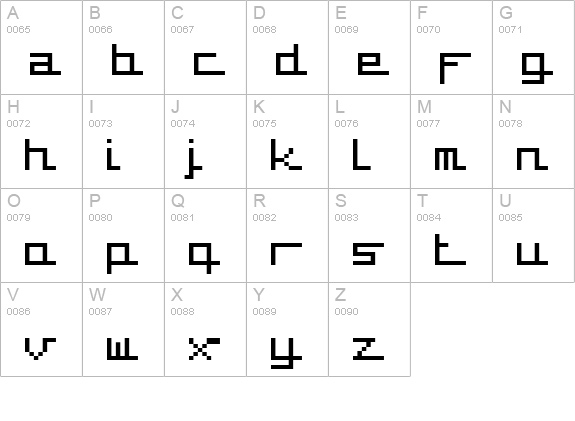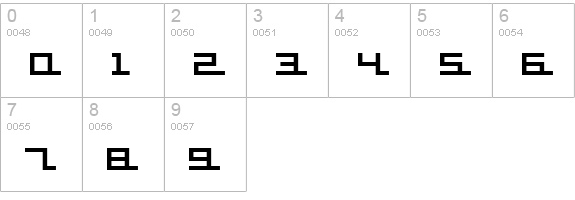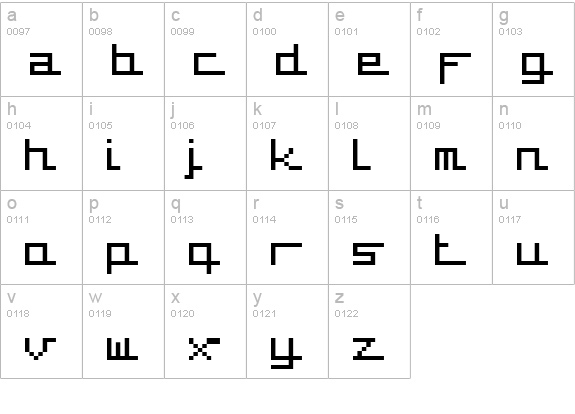
supercar Font Details
Introducing the breathtaking and dynamic SuperCar font, a sleek and modern typeface designed to elevate any project to new heights of sophistication and style. With its sharp lines and futuristic appeal, SuperCar exudes a sense of speed and power, making it the perfect choice for automotive-related designs, luxury branding, and high-end projects. This eye-catching font is not only visually stunning but also incredibly versatile, lending itself to a wide range of design applications. Whether you're creating a poster for a high-octane event, designing a logo for a cutting-edge tech company, or crafting a sleek website for a luxury brand, SuperCar will make your text pop and command attention. And the best part? SuperCar is completely free to download at FontsMarket.com, making it accessible to designers and creatives everywhere who are looking to add a touch of elegance and sophistication to their work. Don't miss out on this opportunity to elevate your designs with the striking SuperCar font – download it today and take your projects to the next level!